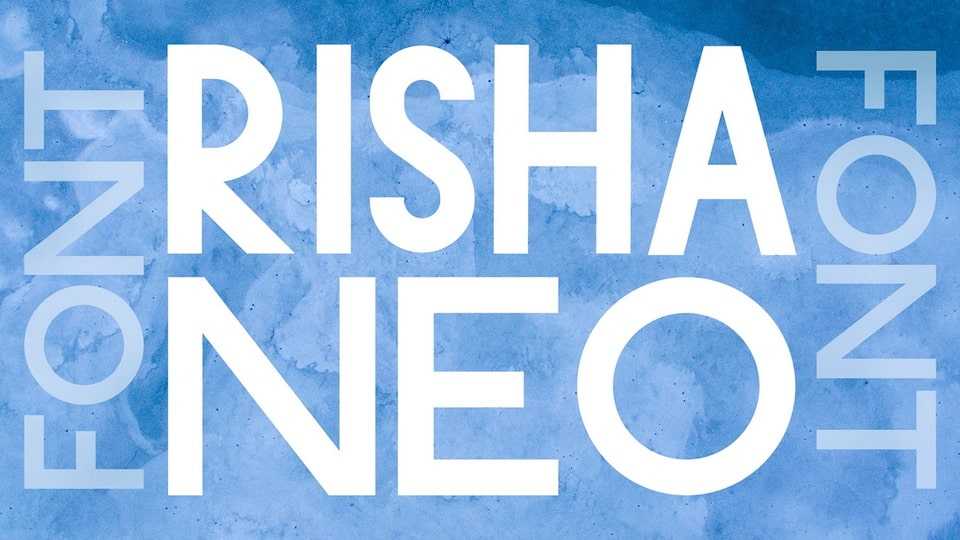
Download Risha Neo font, a modern sans serif typeface that plays with proportions and contrast in width, giving each letter a distinctive rhythm and flow.
Designer: Isami Risha